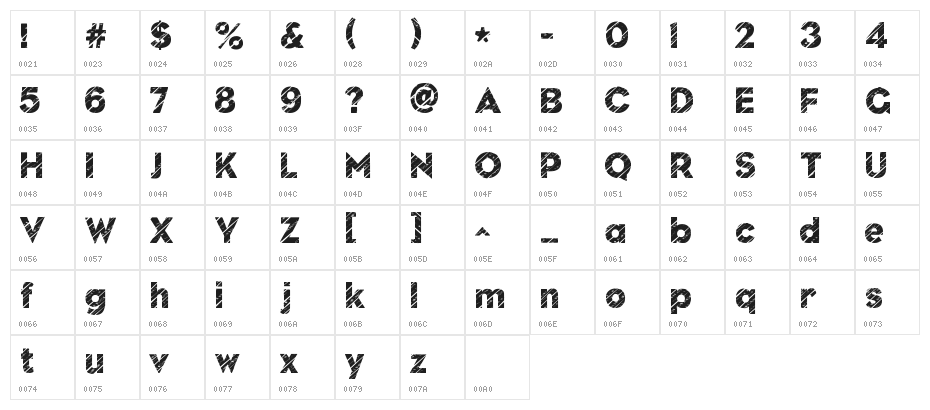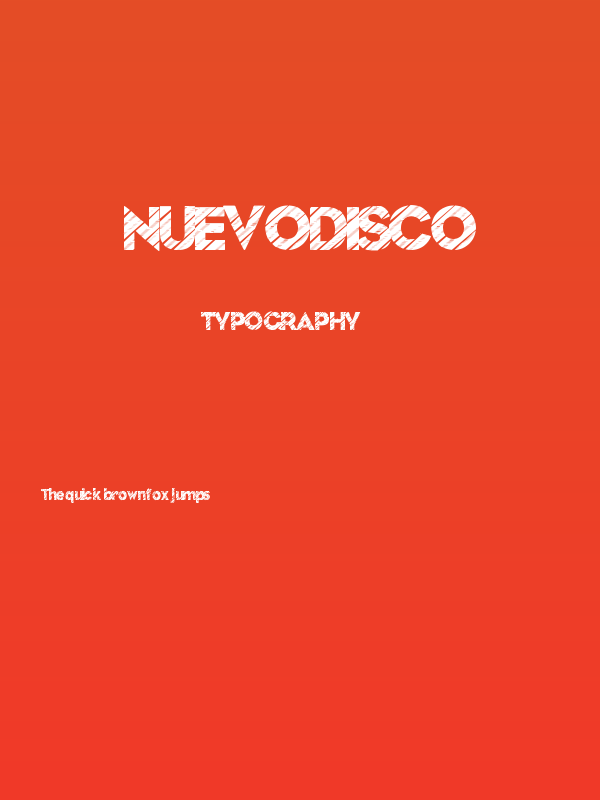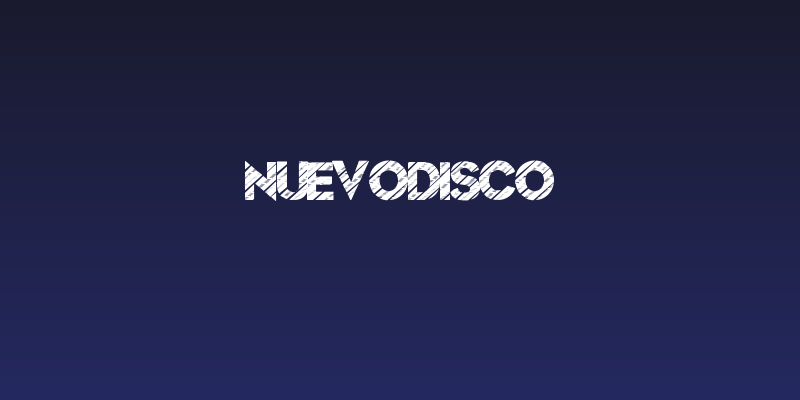
NuevoDisco Font
NuevoDisco Description
This font features a bold, modern design with a unique diagonal line pattern running through each character, creating a dynamic and textured appearance. The uppercase and lowercase letters maintain a consistent width, giving the font a balanced and cohesive look. The numerals and special characters follow the same stylistic pattern, ensuring uniformity across all elements. The font's boldness and distinct style make it highly suitable for attention-grabbing headlines and display purposes. Its decorative nature adds a contemporary flair, making it ideal for projects that require a strong visual impact.
| Proposed Projects | Ideal for posters, branding, advertising, and any project requiring a striking, modern aesthetic. |